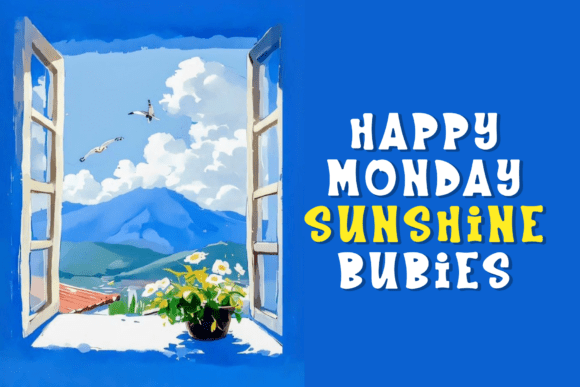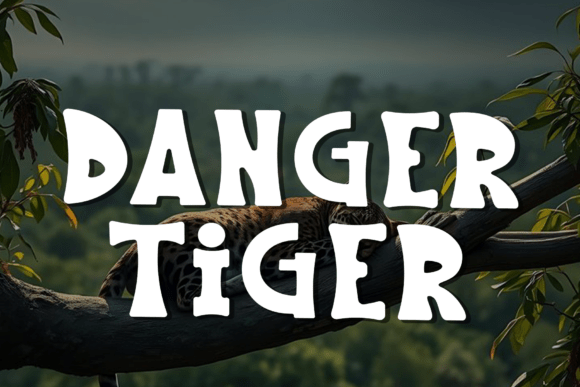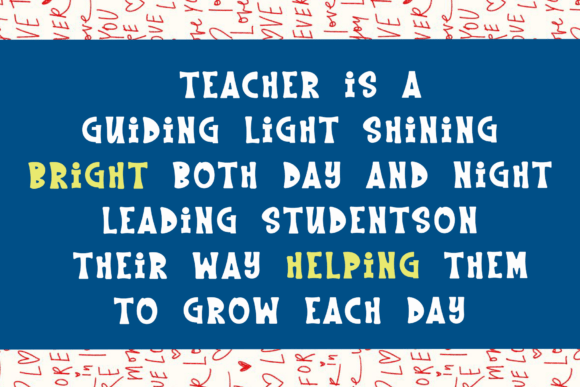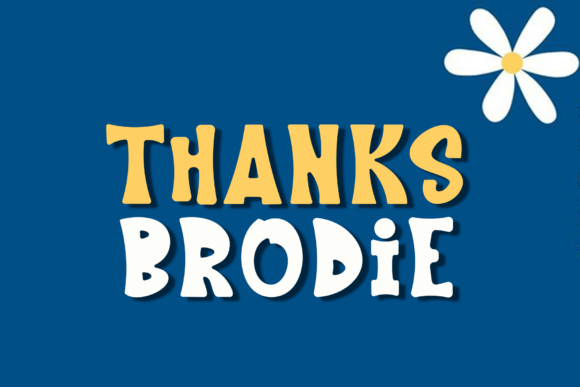
Introducing Birthdays Midnight Font: The Ultimate Party Companion
Are you tired of using the same old fonts for your party invitations, posters, and social media graphics? Look no further than the Birthdays Midnight font, a bold, playful display typeface that’s sure to add a fun and retro touch to your designs. With its chunky, rounded, and condensed block letters, this font is perfect for creating eye-catching headers that will make your special occasion stand out.
A Font that Channels a Fun, Retro Aesthetic
The Birthdays Midnight font is inspired by the fun and playful designs of the 1970s. Its chunky, rounded letters have a subtly uneven baseline, giving it a lively, hand-painted look that’s sure to bring a smile to your face. The font’s bold and condensed design makes it perfect for creating attention-grabbing headers that will draw people in. Whether you’re designing a birthday party invitation, a fun children’s poster, or a nostalgic branding campaign, this font is sure to deliver.
Excellent Layering Potential
One of the standout features of the Birthdays Midnight font is its excellent layering potential. The dramatic contrast between the yellow uppercase and white lowercase letters (as seen in the preview) creates a visually appealing effect that’s sure to add depth and interest to your designs. This feature makes it easy to create stunning layered designs that will take your work to the next level.
Ideal for a Variety of Design Projects
The Birthdays Midnight font is incredibly versatile and can be used for a wide range of design projects. Here are just a few ideas to get you started:
- Birthday party invitations: Create eye-catching invitations that will set the tone for an unforgettable celebration.
- Fun children’s posters: Use the Birthdays Midnight font to create colorful and engaging posters that kids will love.
- Nostalgic branding: Add a touch of retro flair to your branding campaign with this fun and playful font.
- Social media graphics: Use the Birthdays Midnight font to create funky and engaging social media graphics that will make your followers smile.
Why Choose the Birthdays Midnight Font?
So why choose the Birthdays Midnight font for your next design project? Here are just a few reasons:
- Bold and playful: This font is perfect for creating eye-catching headers that will grab people’s attention.
- Retro aesthetic: The Birthdays Midnight font channels a fun and retro vibe that’s sure to bring a smile to people’s faces.
- Excellent layering potential: The contrast between the yellow uppercase and white lowercase letters creates a visually appealing effect that’s sure to add depth and interest to your designs.
- Versatile: This font can be used for a wide range of design projects, from birthday party invitations to nostalgic branding campaigns.
Get Ready to Celebrate in Style
If you’re looking for a font that will add a fun and playful touch to your designs, look no further than the Birthdays Midnight font. With its bold, chunky letters and excellent layering potential, this font is sure to be a hit with designers and crafters alike. So why wait? Download the Birthdays Midnight font today and get ready to celebrate in style!
Tips for Using the Birthdays Midnight Font
Here are a few tips for getting the most out of the Birthdays Midnight font:
- Experiment with layering: Don’t be afraid to experiment with layering the yellow uppercase and white lowercase letters to create stunning visual effects.
- Use it for headlines: The Birthdays Midnight font is perfect for creating eye-catching headlines that will grab people’s attention.
- Pair it with other fonts: Try pairing the Birthdays Midnight font with other fonts to create interesting and dynamic designs.
- Have fun: Most importantly, have fun with the Birthdays Midnight font! It’s a playful and versatile font that’s sure to bring a smile to your face.
In conclusion, the Birthdays Midnight font is a bold, playful display typeface that’s perfect for adding a fun and retro touch to your designs. With its excellent layering potential, versatility, and bold and playful design, this font is sure to be a hit with designers and crafters alike. So why wait? Download the Birthdays Midnight font today and get ready to celebrate in style!